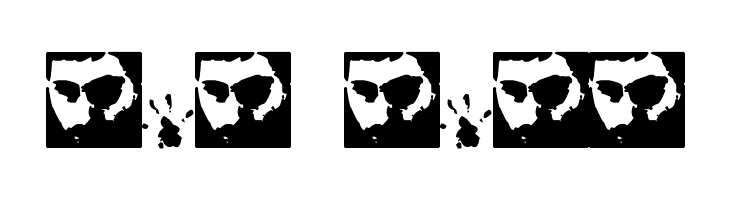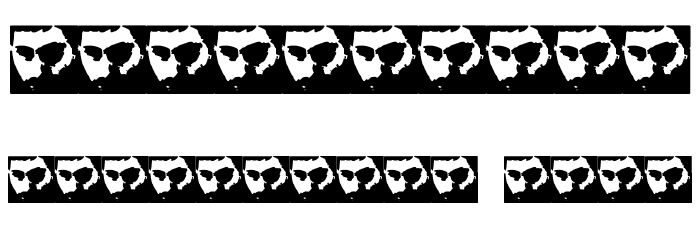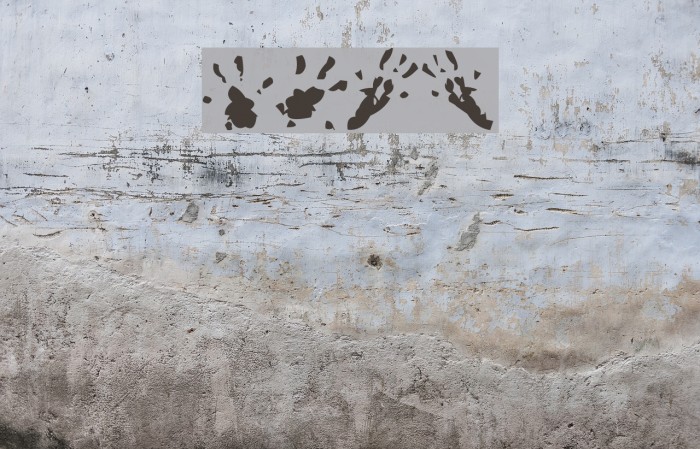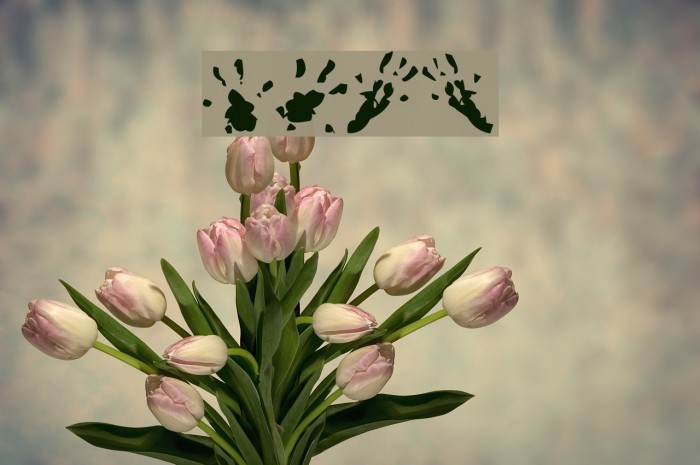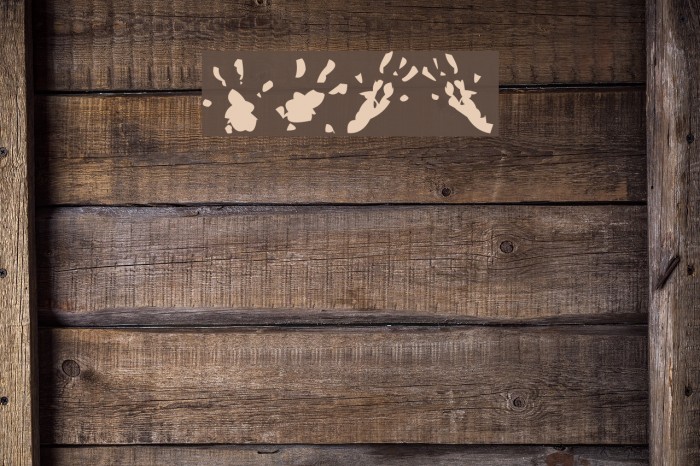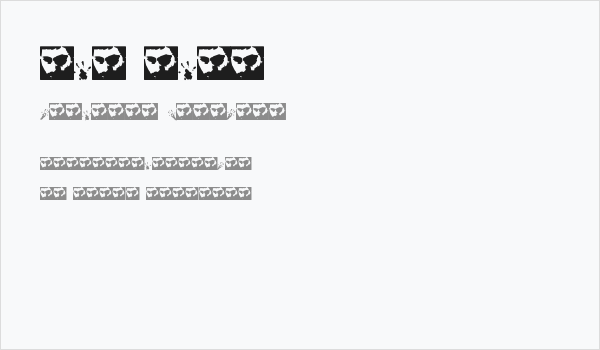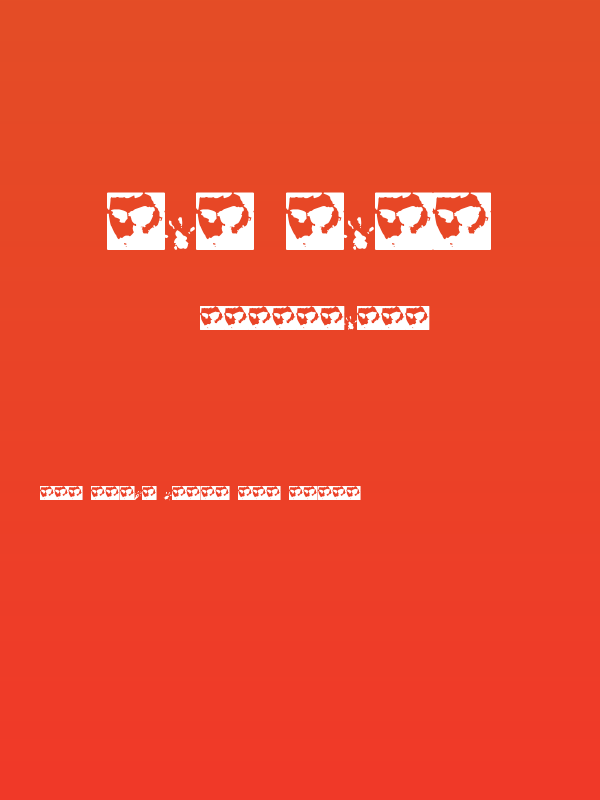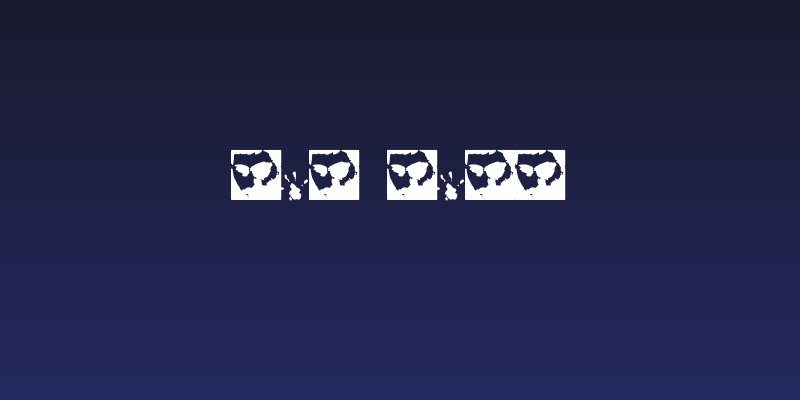
Rat Paws Font
Rat Paws Description
This is not a valid font. The image consists of repeated graphic elements resembling animal skulls and paw prints, arranged in a pattern. There are no distinguishable letters, numbers, or standard typographic characters present. The design is more decorative and thematic, focusing on a visual motif rather than providing a functional typeface for text.
| Use Case | Decorative patterns, Themed designs |
| Proposed Projects | This design could be used for decorative purposes, such as creating themed borders, backgrounds, or patterns for graphic design projects. |